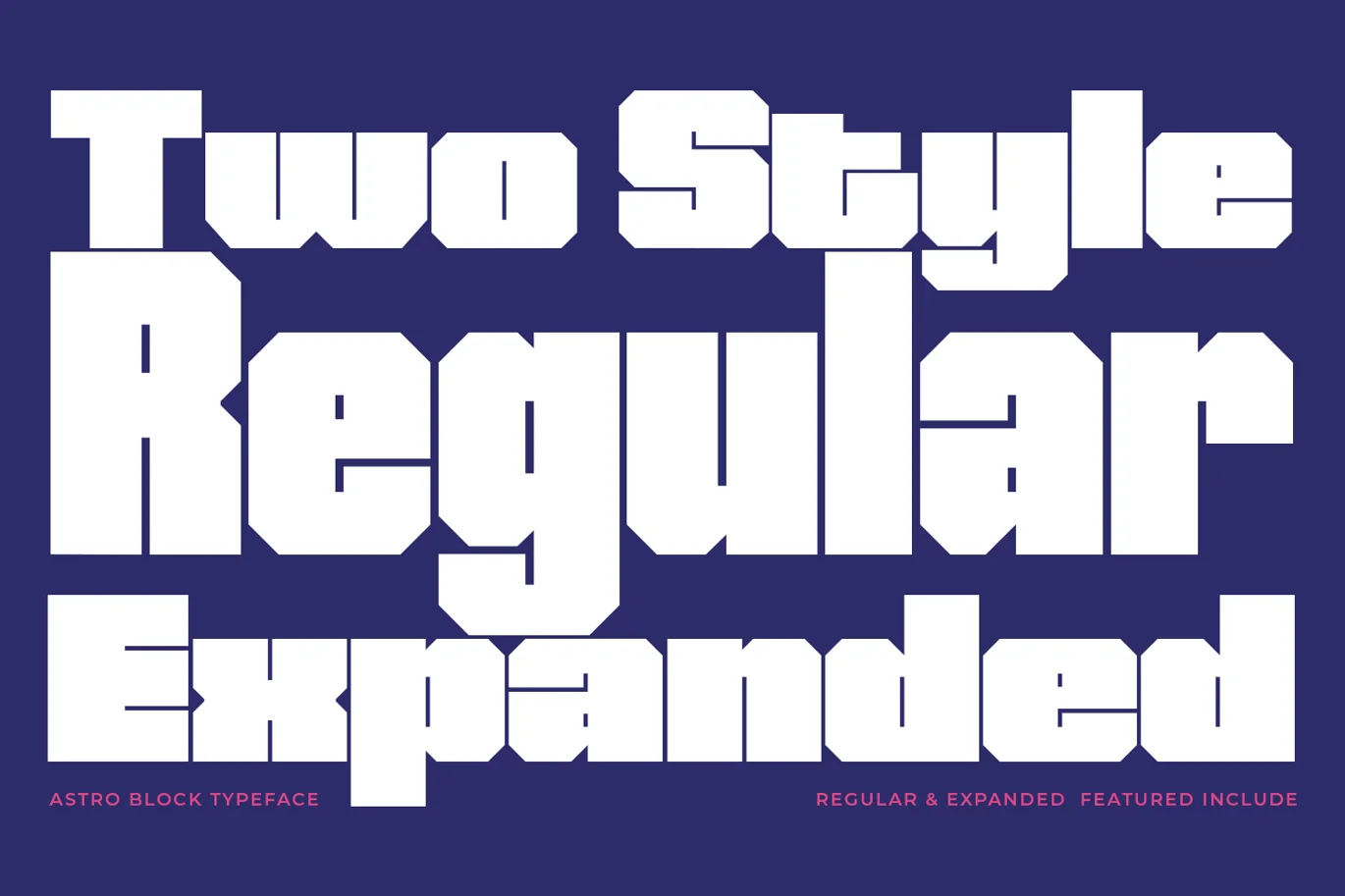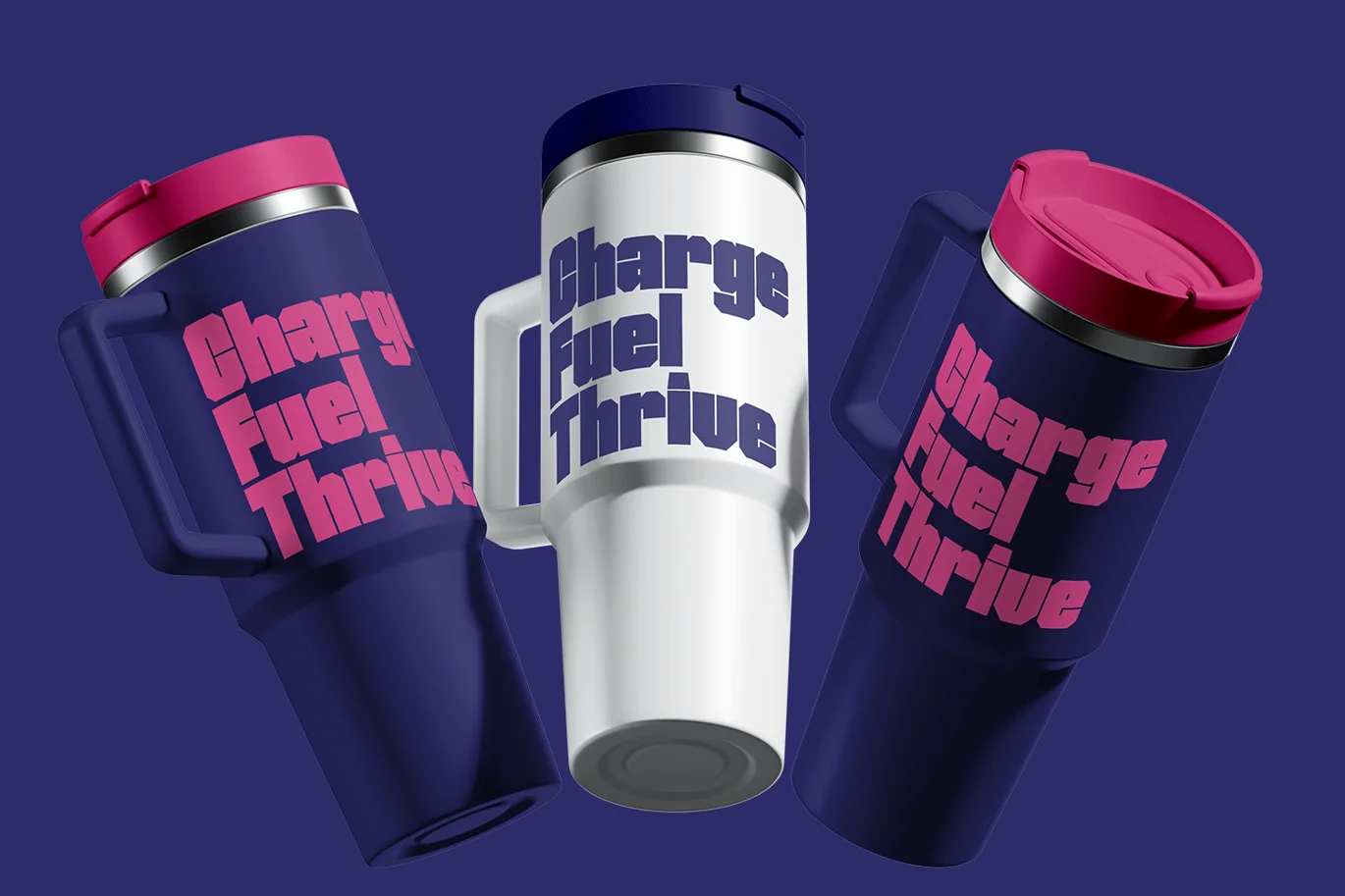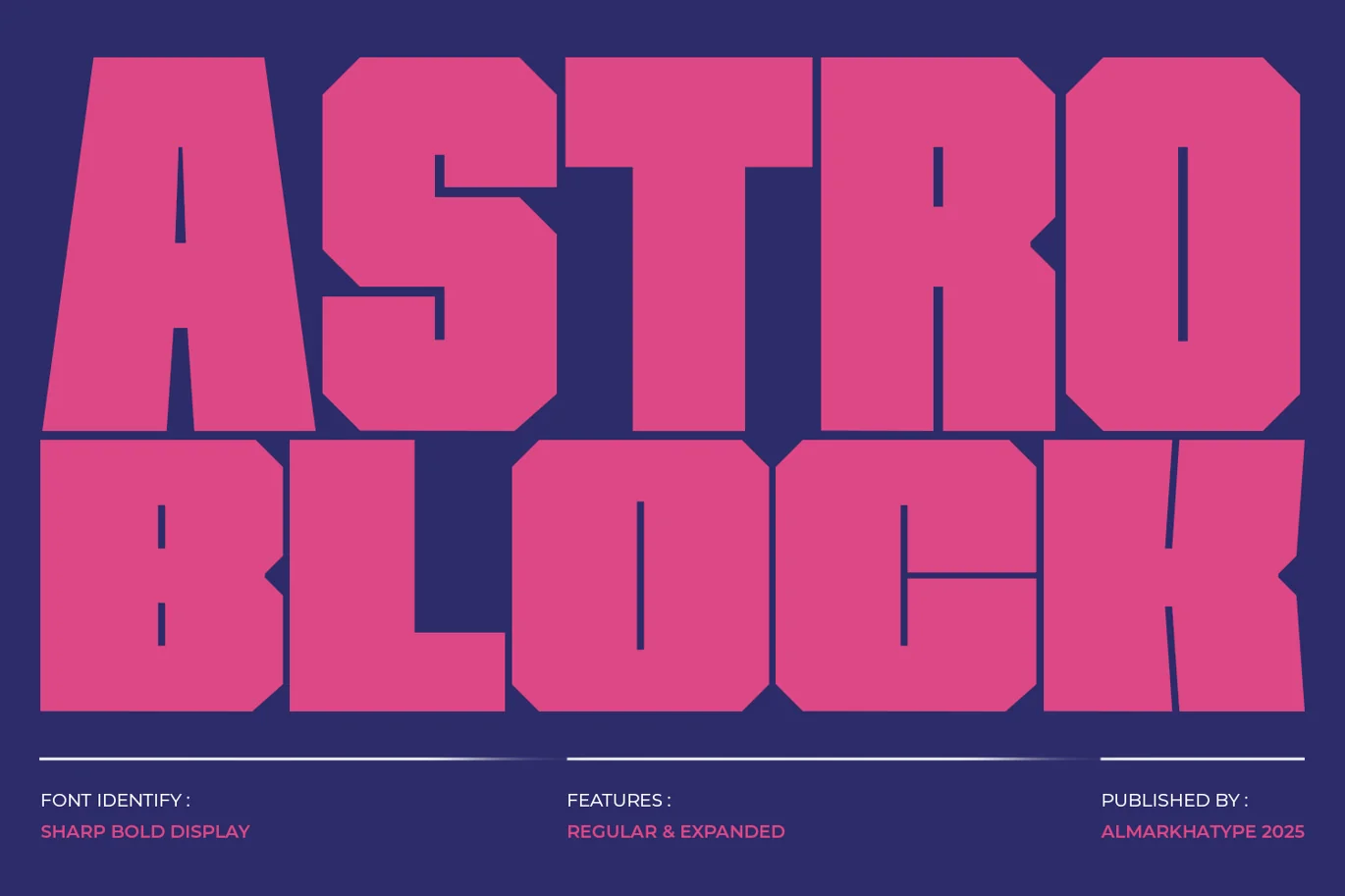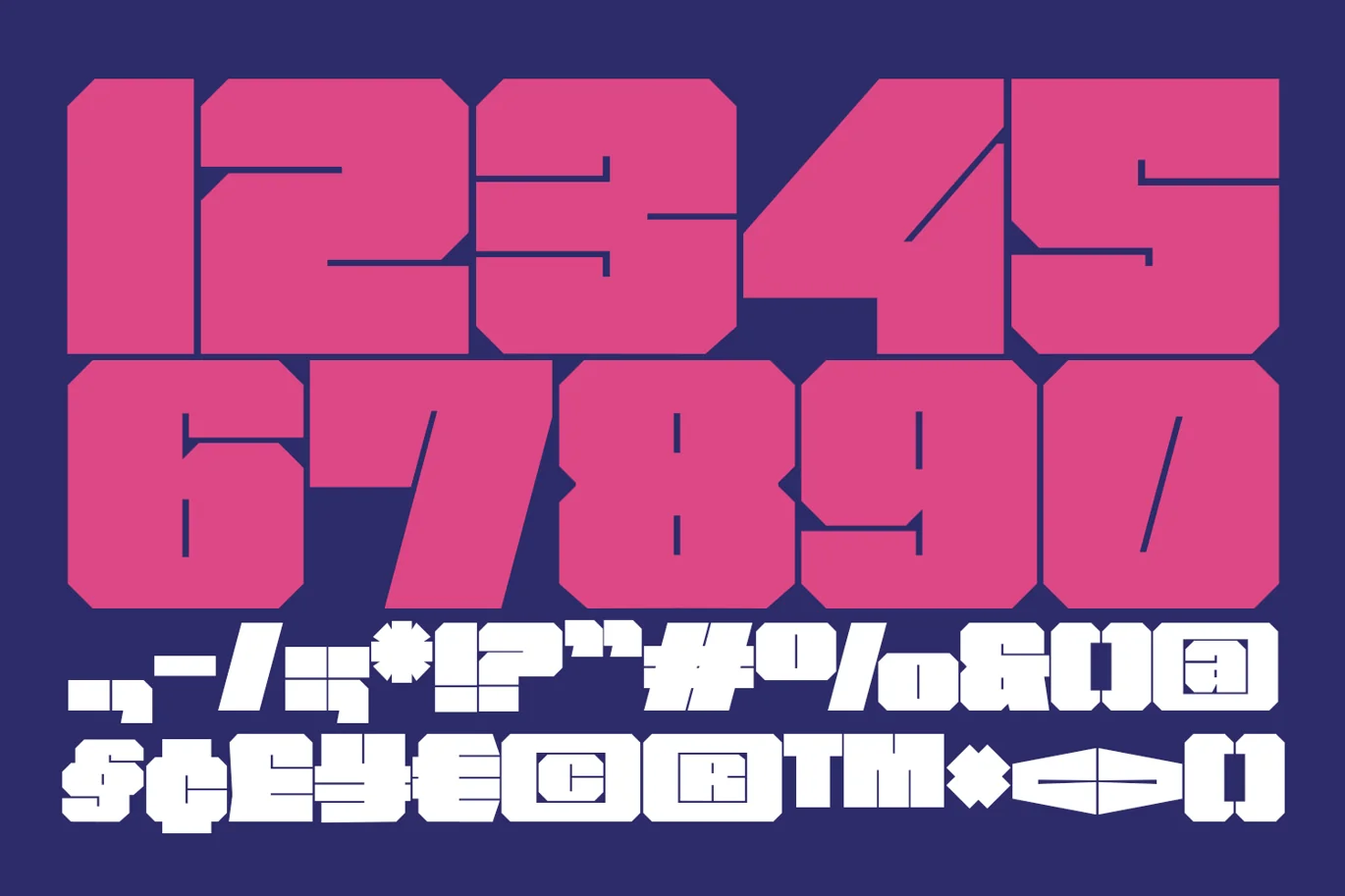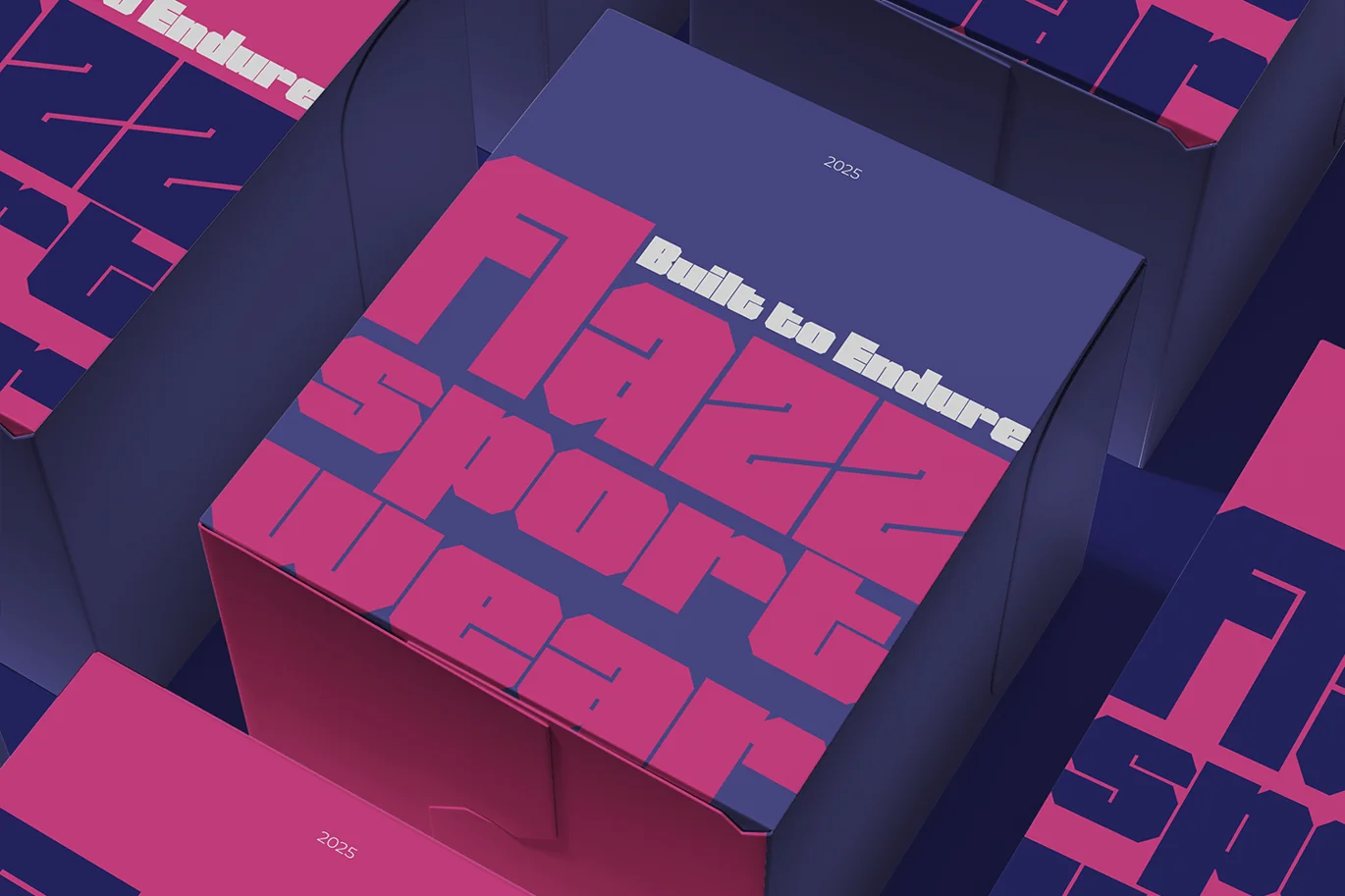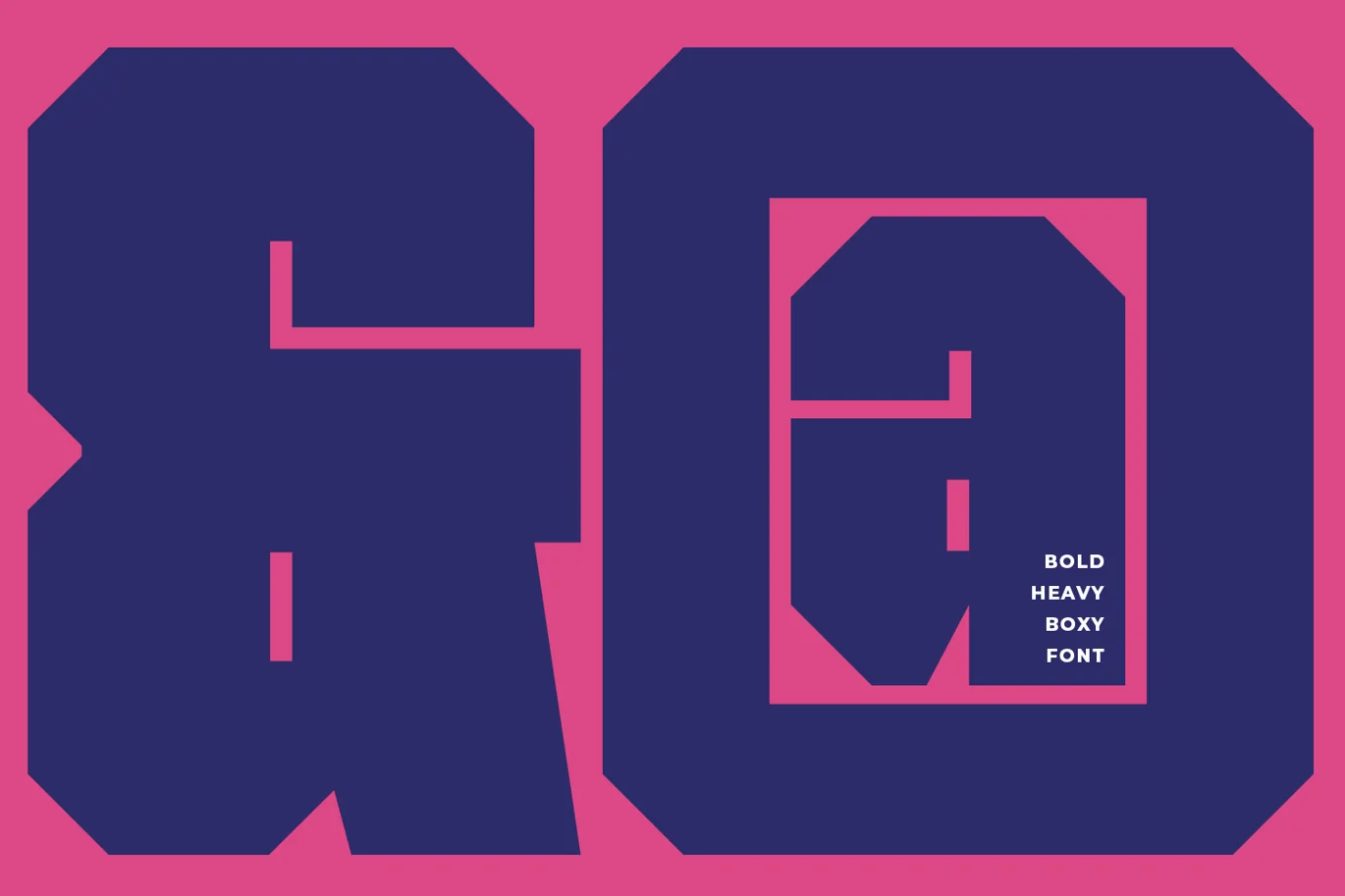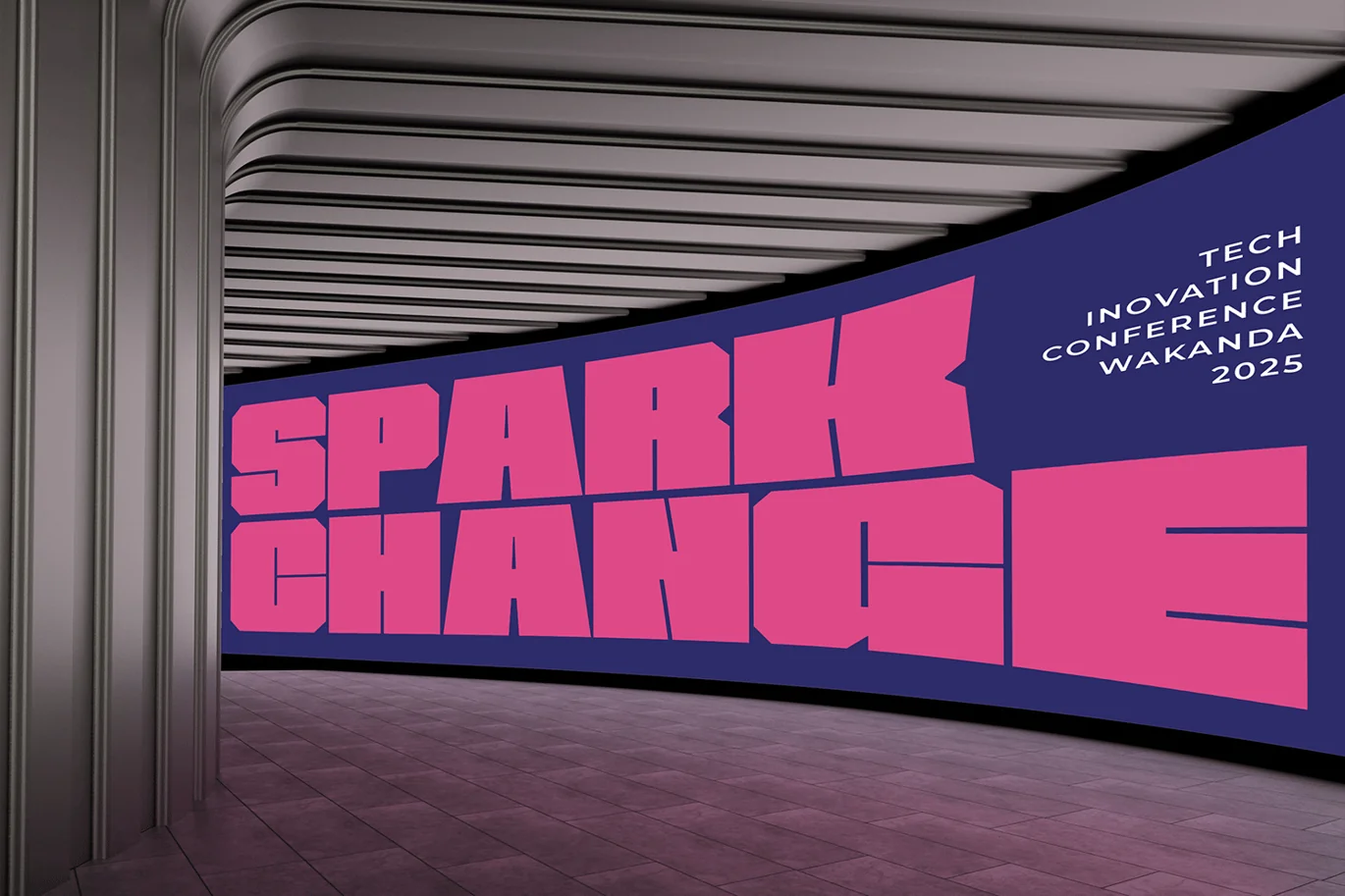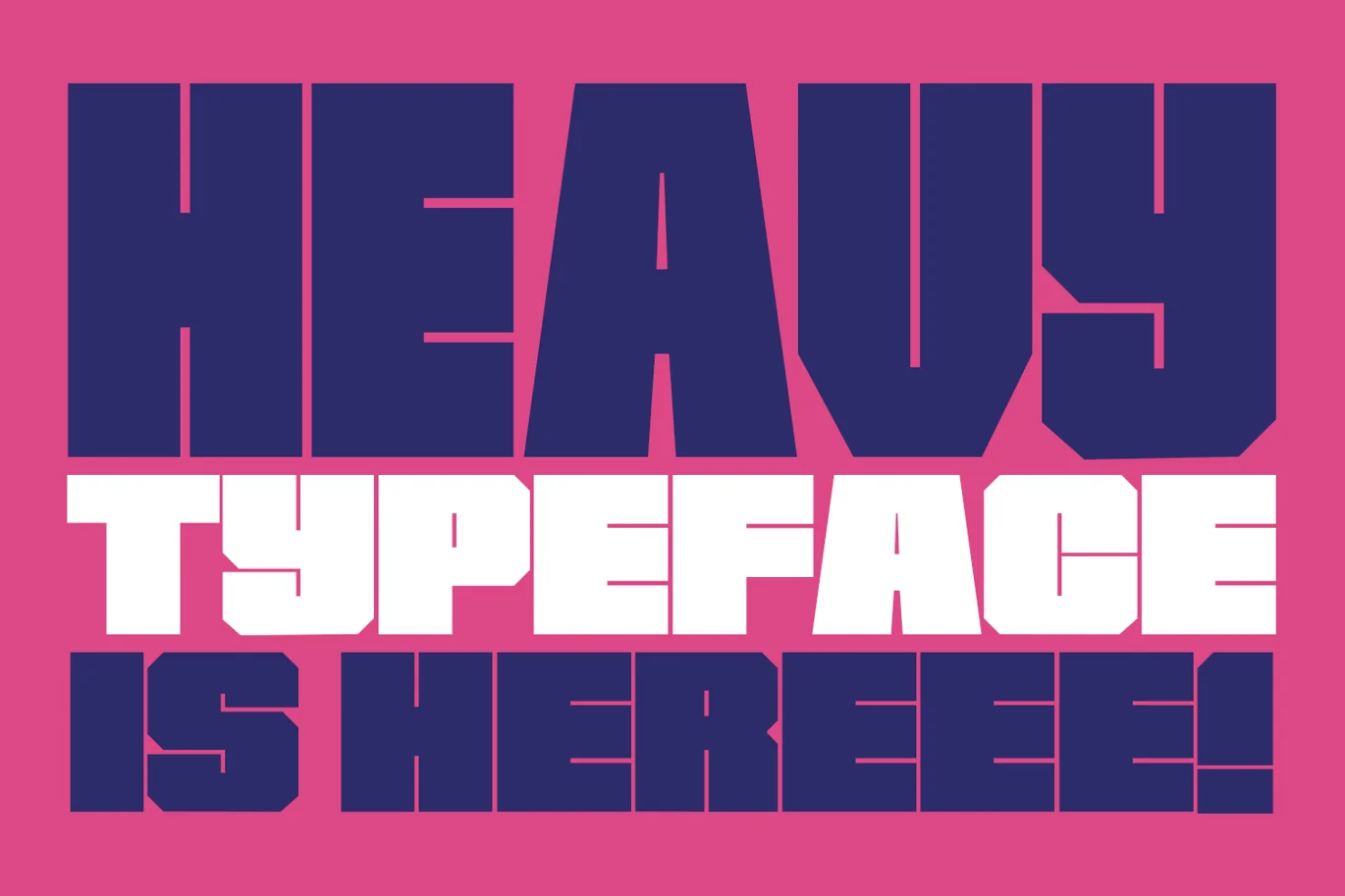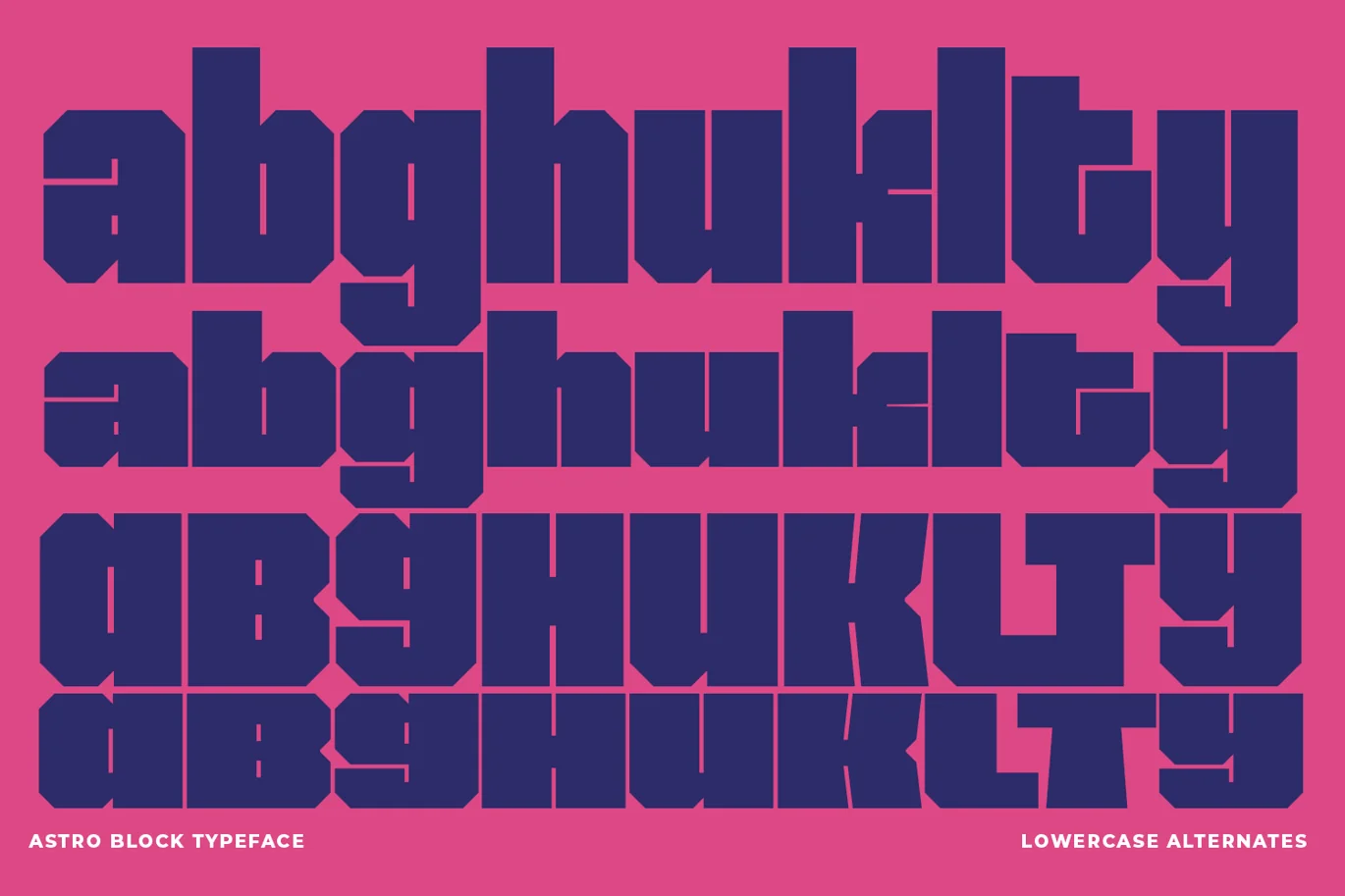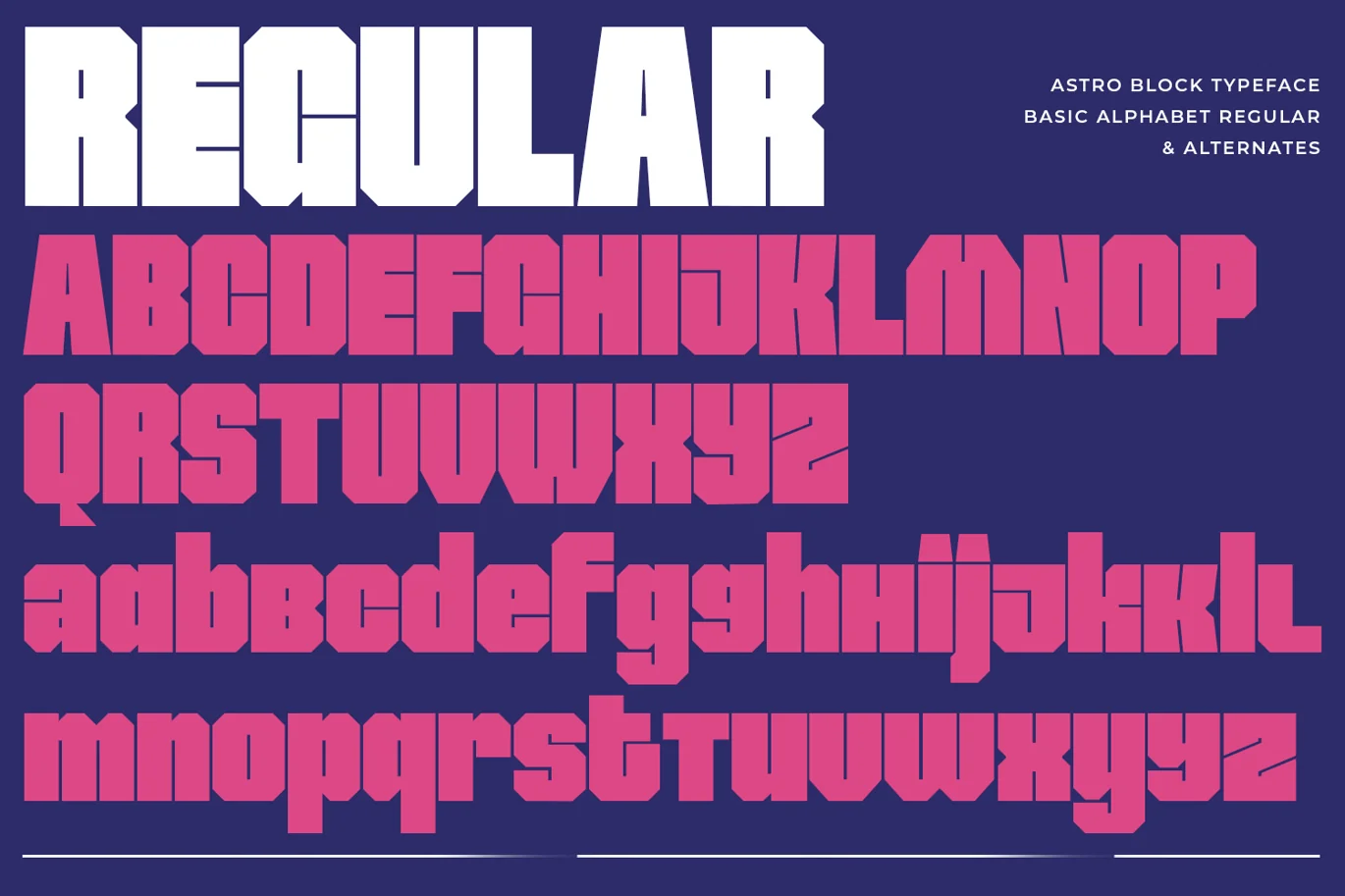
Astro Block – Impact Bold Font
Bold. Dynamic. Unapologetically Powerful.
Astro Block Designed for those who refuse to blend in, this bold sans-serif display typeface cracks through the noise with its high-voltage energy and razor-sharp modernity.